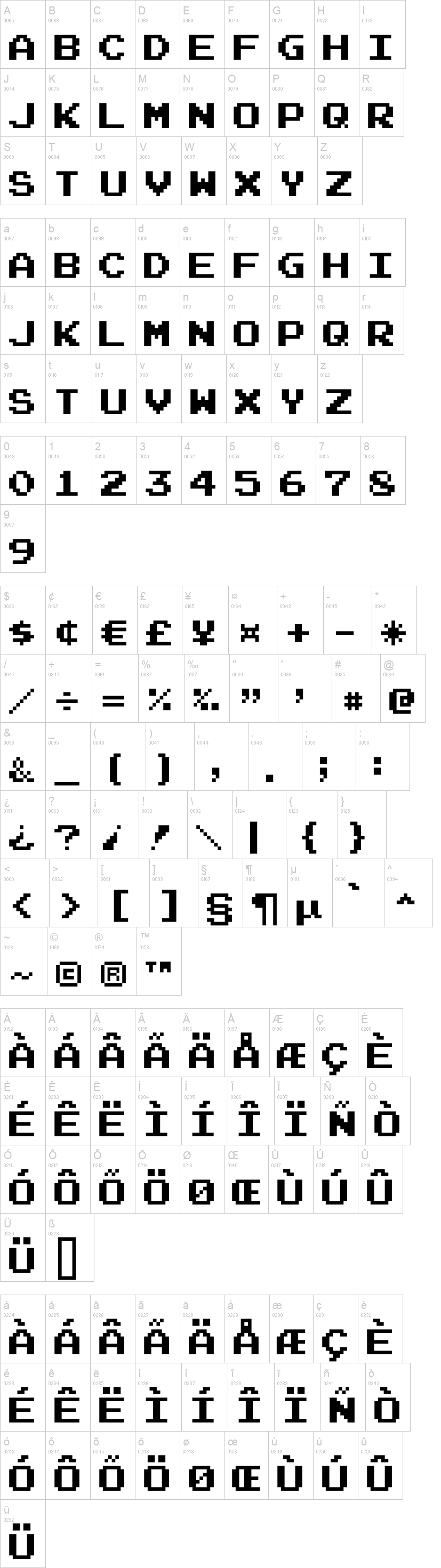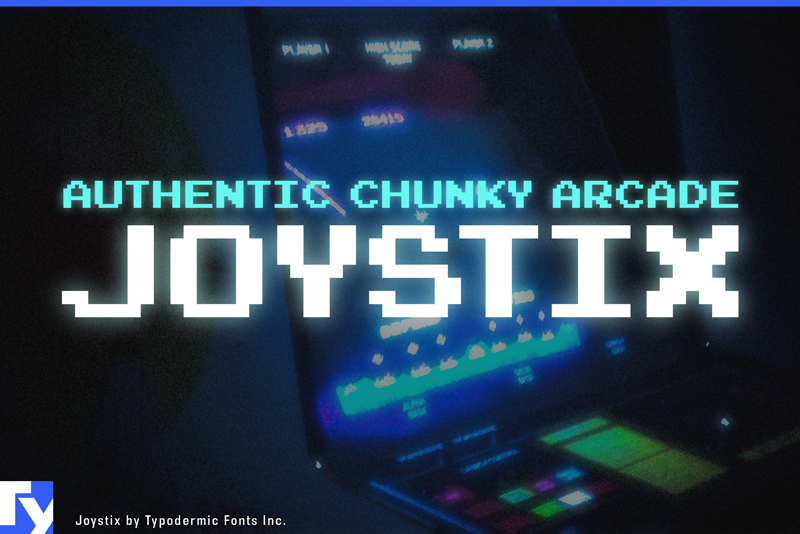
Joystix, the video game font has been upgraded. Accents have been replaced, punctuation and symbols have been added. It’s still monospaced and still free. Sometimes you need authentic, chunky arcade spacing but there are situations where refined, proportionally spaced headlines are the way to go. That’s why I made Joystix Proportional. It saves space too, so it’s better suited as a blog headliner than Joystix Monospaced.